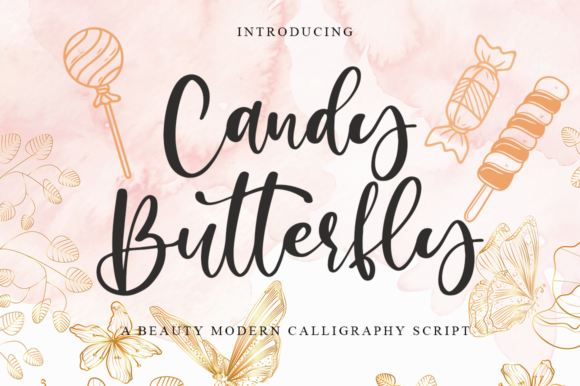
The Sweetest Script Font: A Deep Dive into Candy Butterfly
I’ll never forget the time I was working on a project for a client who wanted a elegant and refreshing look for their branding. I had spent hours scouring the internet for the perfect font, but nothing seemed quite right. That was until I stumbled upon Candy Butterfly, a lovely and delicate script font that exuded elegance and class. In this article, I’ll share my experience with Candy Butterfly, and explore its features, uses, and alternatives.
An Honest Review of Candy Butterfly
Candy Butterfly is a beautiful script font that has become a staple in my design toolkit. Here’s what I love about it:
- ✨ Elegant and refined: Candy Butterfly has a sophisticated feel that’s perfect for high-end branding and designs.
- ✅ Highly legible: Despite its delicate nature, Candy Butterfly is surprisingly easy to read, even at small sizes.
- 💫 Versatile: This font works well for a variety of design projects, from wedding invitations to business cards.
Of course, no font is perfect, and Candy Butterfly has a few quirks:
- 🤔 Limited character set: While Candy Butterfly has a wide range of characters, it’s not a full-featured font with every possible glyph.
- ⚠️ May not work well with bold or bright colors: Due to its delicate nature, Candy Butterfly may get lost with bold or bright color schemes.
A Practical Guide to Using Candy Butterfly
Now that we’ve covered the basics, let’s dive into how to use Candy Butterfly in your designs.
- Experiment with OpenType features, such as swashes and stylistic alternates, to add visual interest to your design.
- Explore the font’s glyphs and OpenType features, such as ligatures and stylistic sets, to add depth and interest to your design.
The Story Behind Candy Butterfly
Candy Butterfly was designed by a team of typographers who wanted to create a font that was both elegant and refreshing. Inspired by the delicate beauty of butterflies and the sweetness of candy, they crafted a font that would be perfect for designs that need a touch of sophistication.
| What is Candy Butterfly? | Candy Butterfly is a lovely and delicate script font that exudes elegance and class. |
| Is Candy Butterfly suitable for body text? | While Candy Butterfly is beautiful, it’s not ideal for body text due to its delicate nature. It’s best used for headings, titles, and other display text. |